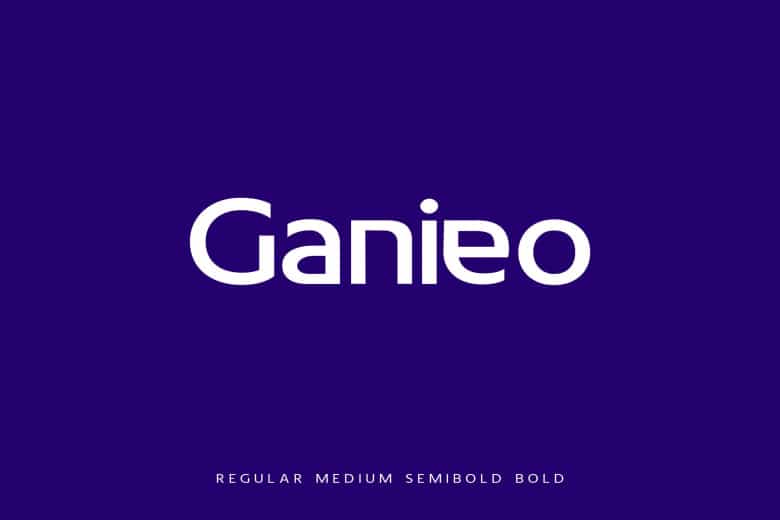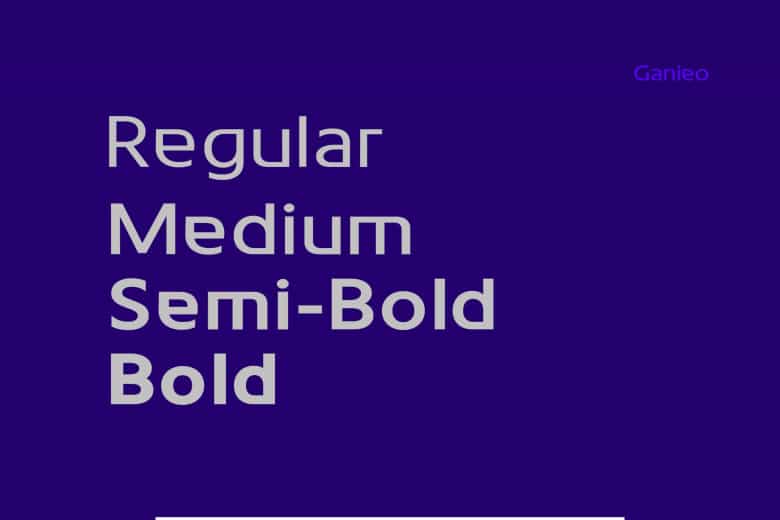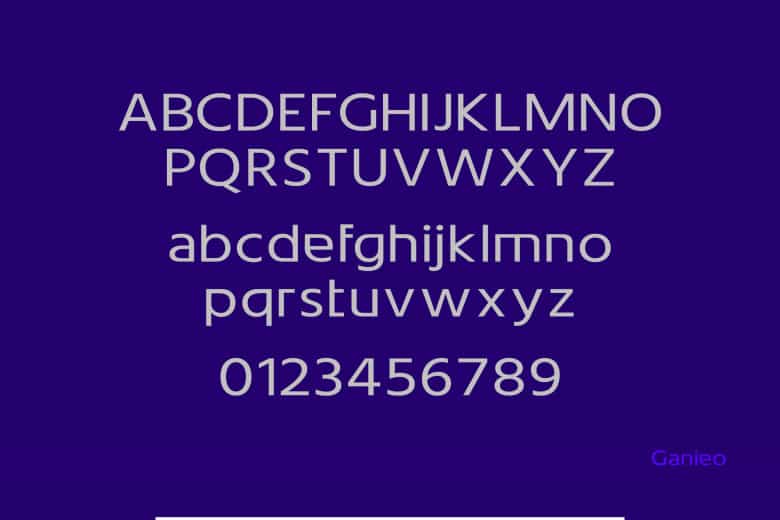
Ganieo is a stylish yet simple sans serif style font, which appears elegant and contemporary. It’s clean characters make this an extremely flexible font to have in one’s font collection! Thanks to its perfect legibility, clean geometry style and legible characters it is ideal for branding brochures greeting cards posters quotes stationary designs blogs headers of blog posts etc.